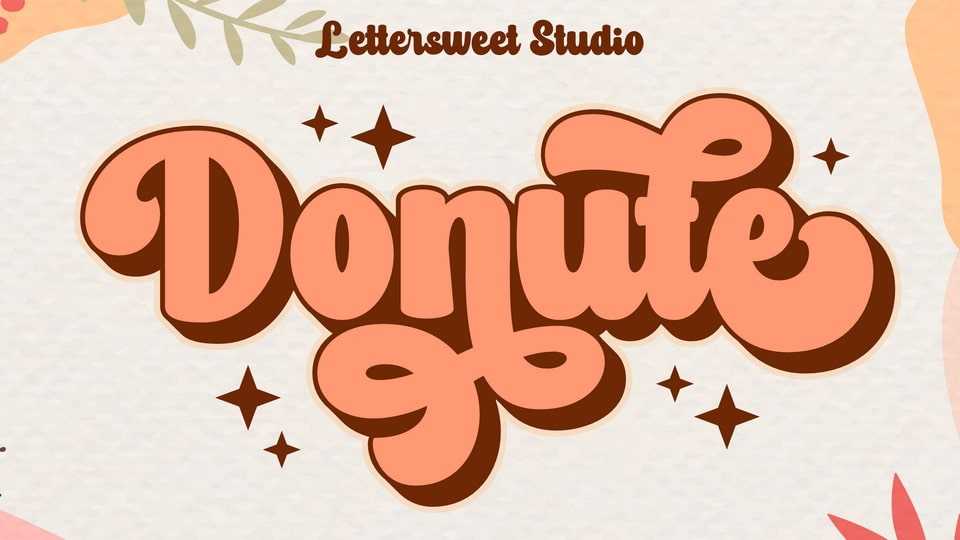
Download Donute font, a bold and retro styled display script typeface, featuring a cool flow. It has beautiful and well balanced characters and as a result, it matches a wide pool of designs.